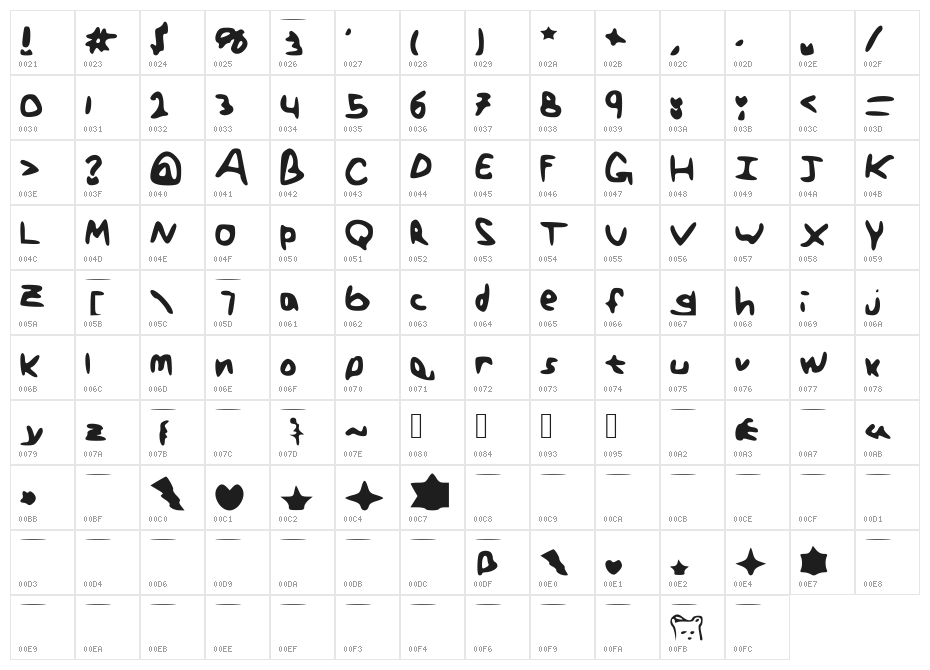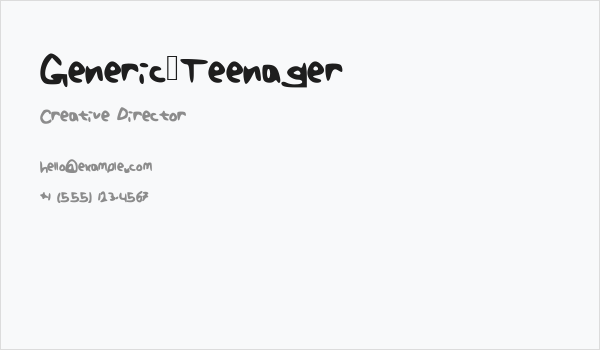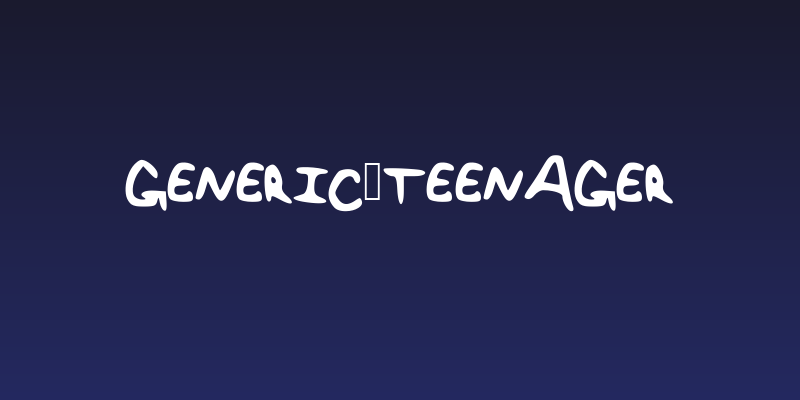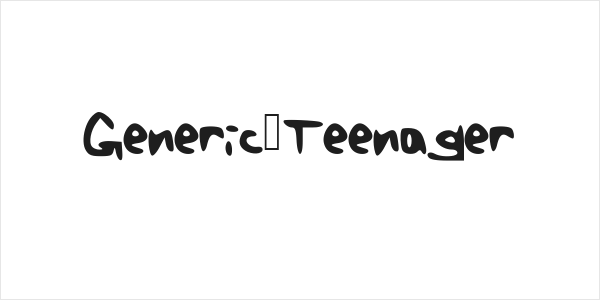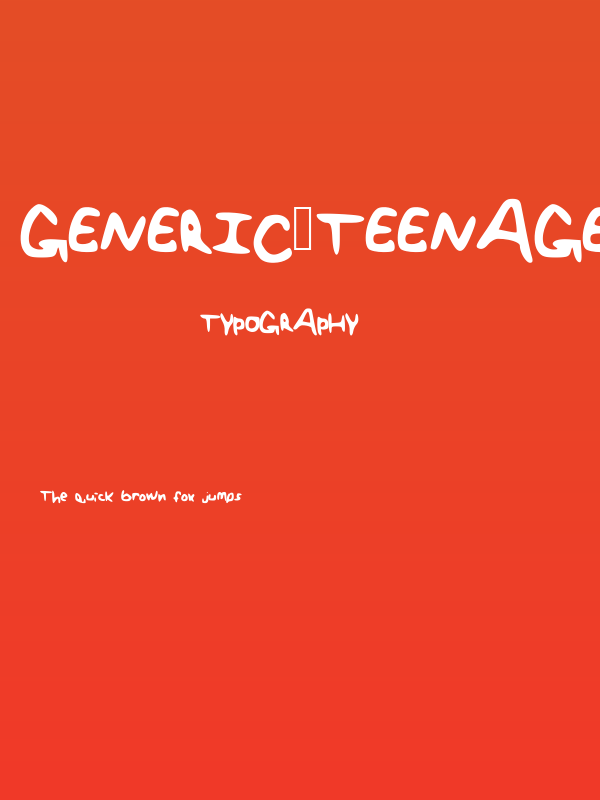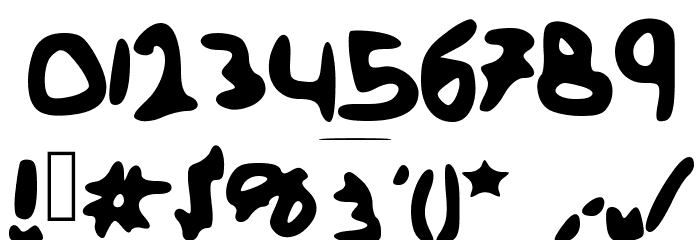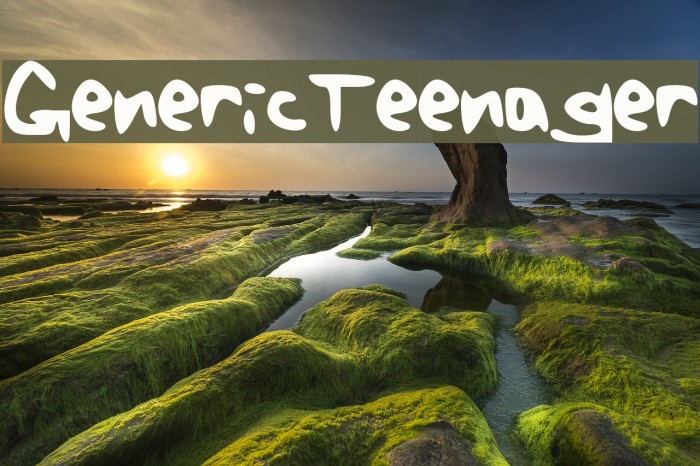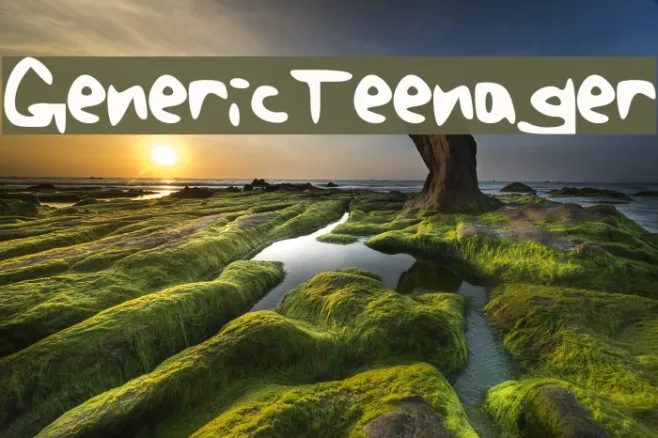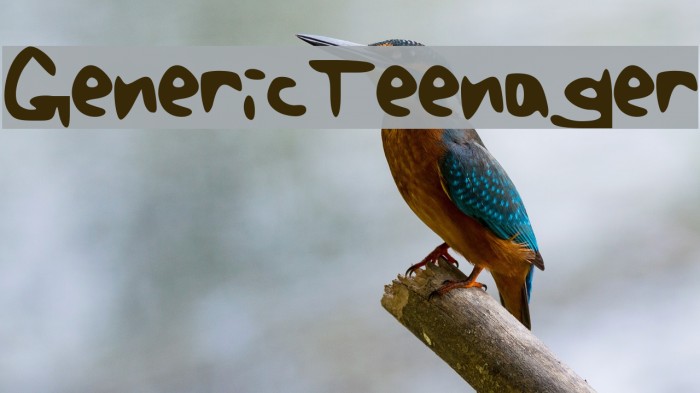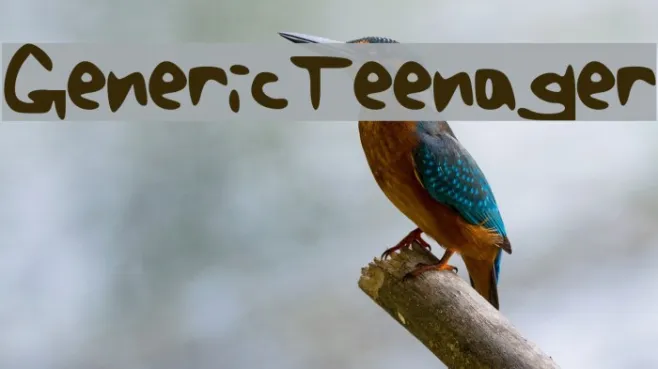
Generic_Teenager Font
Generic_Teenager Description
This font exhibits a playful and youthful style, characterized by its bold, rounded, and slightly irregular letterforms. The uppercase and lowercase letters maintain a consistent, casual appearance, with a hand-drawn aesthetic that adds a sense of spontaneity and energy. The numbers and special characters follow the same playful design, making the font suitable for informal and creative projects. Its bold strokes and unique shapes give it a distinctive look that stands out, while the overall design remains legible and approachable.
| Proposed Projects | Ideal for children's books, comic strips, playful branding, and creative posters. |